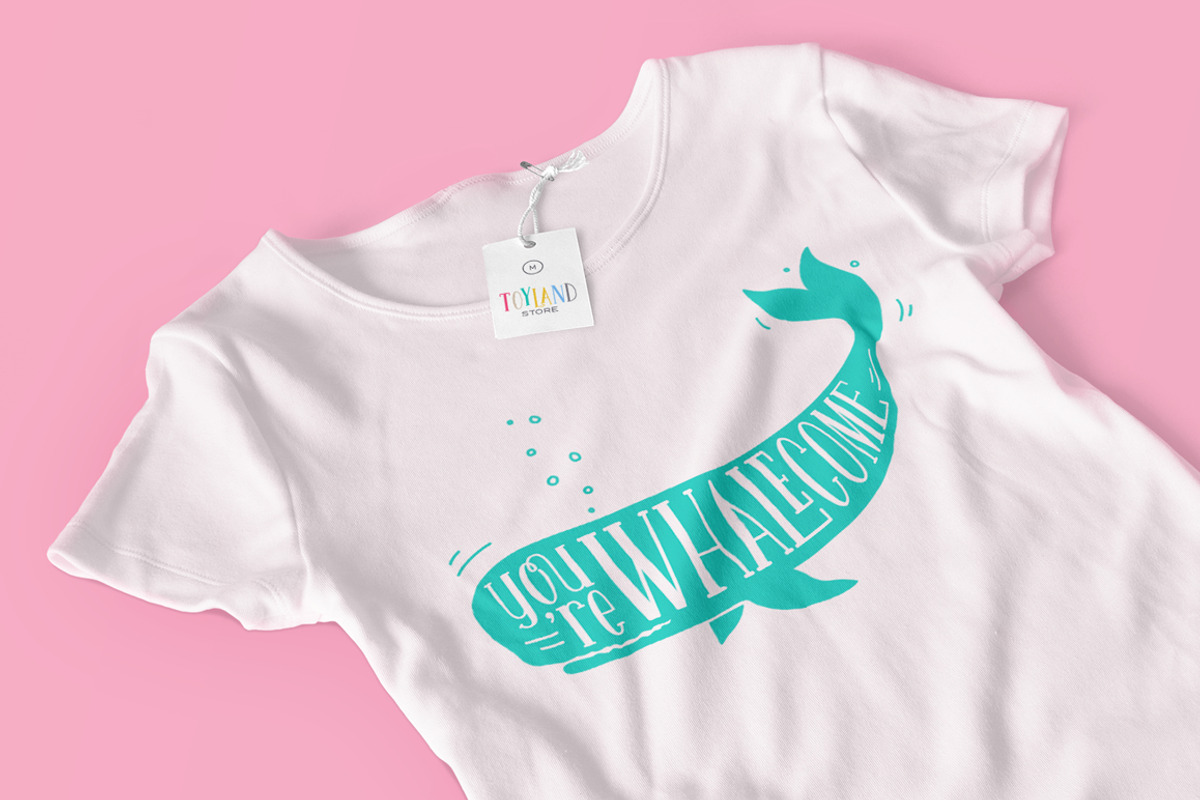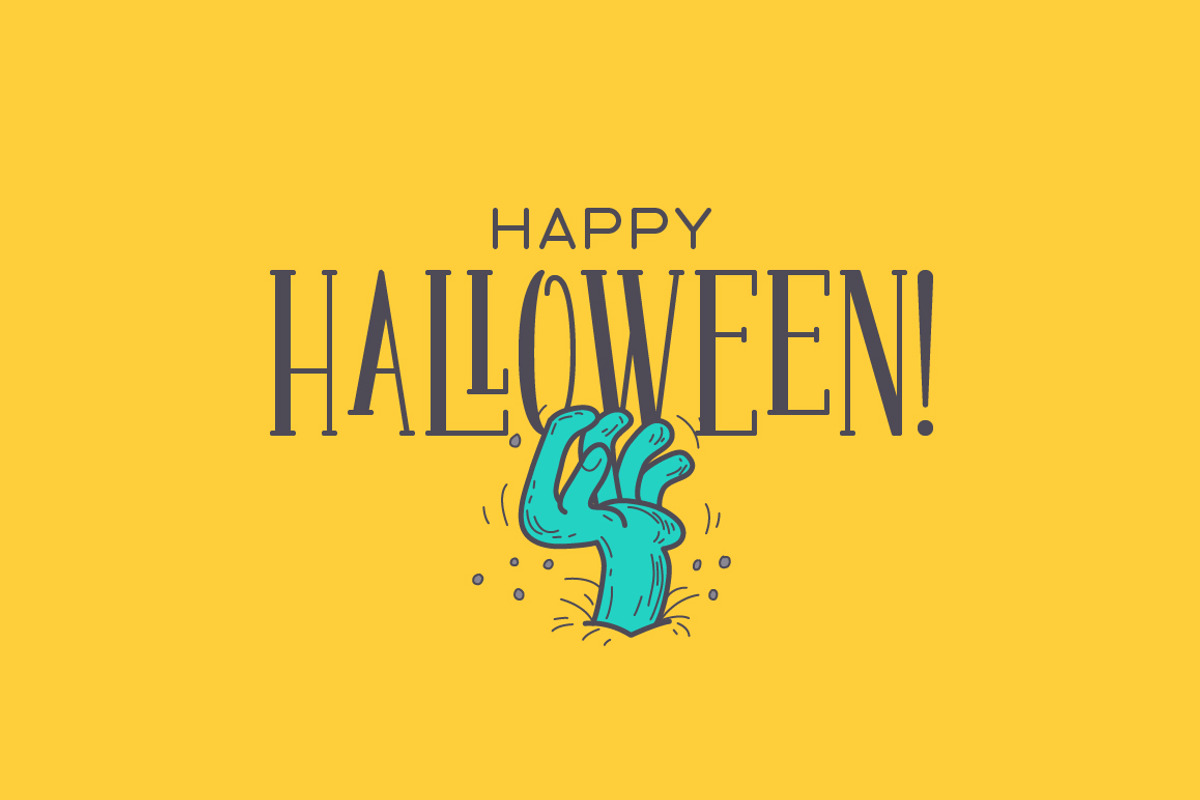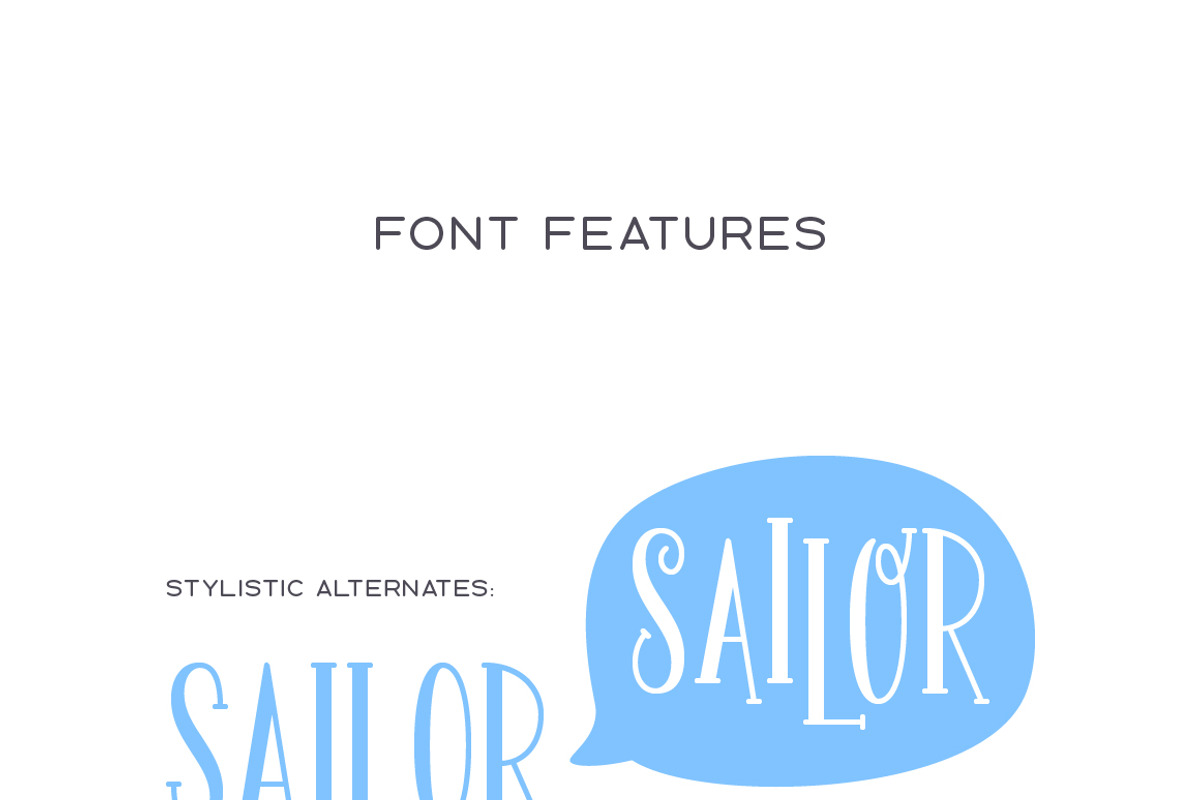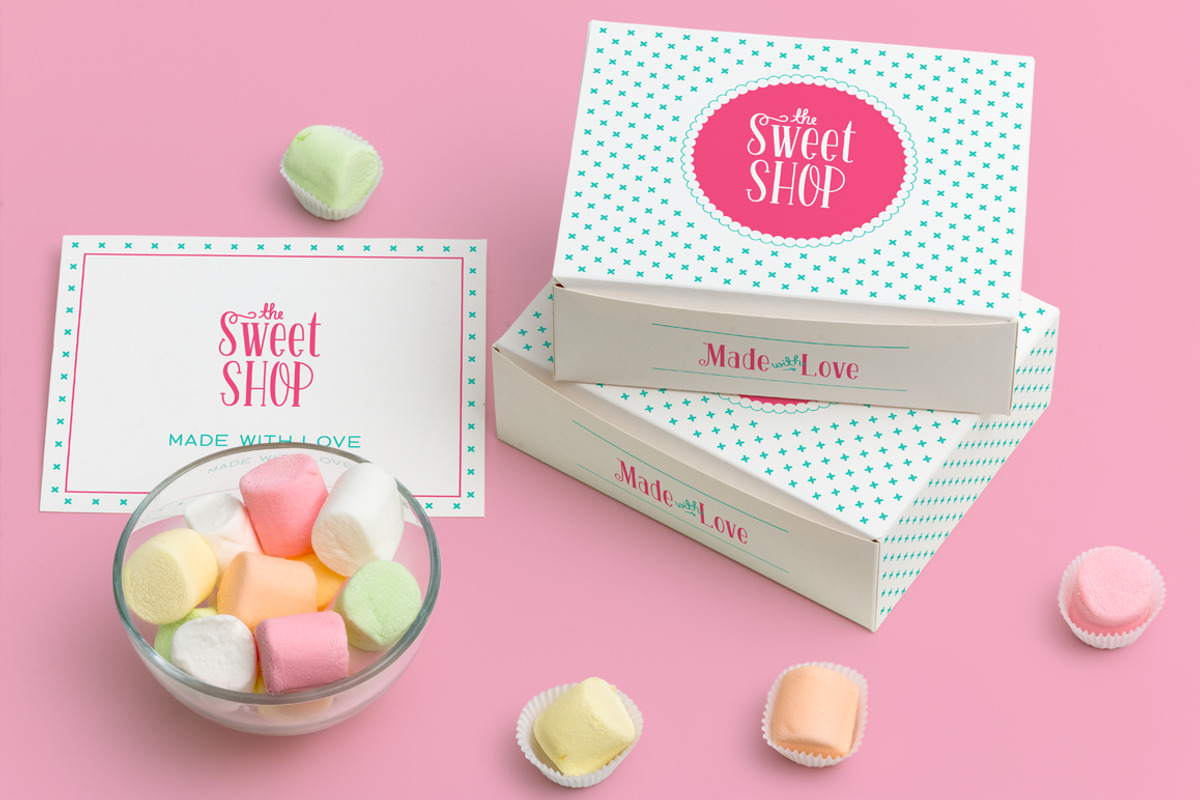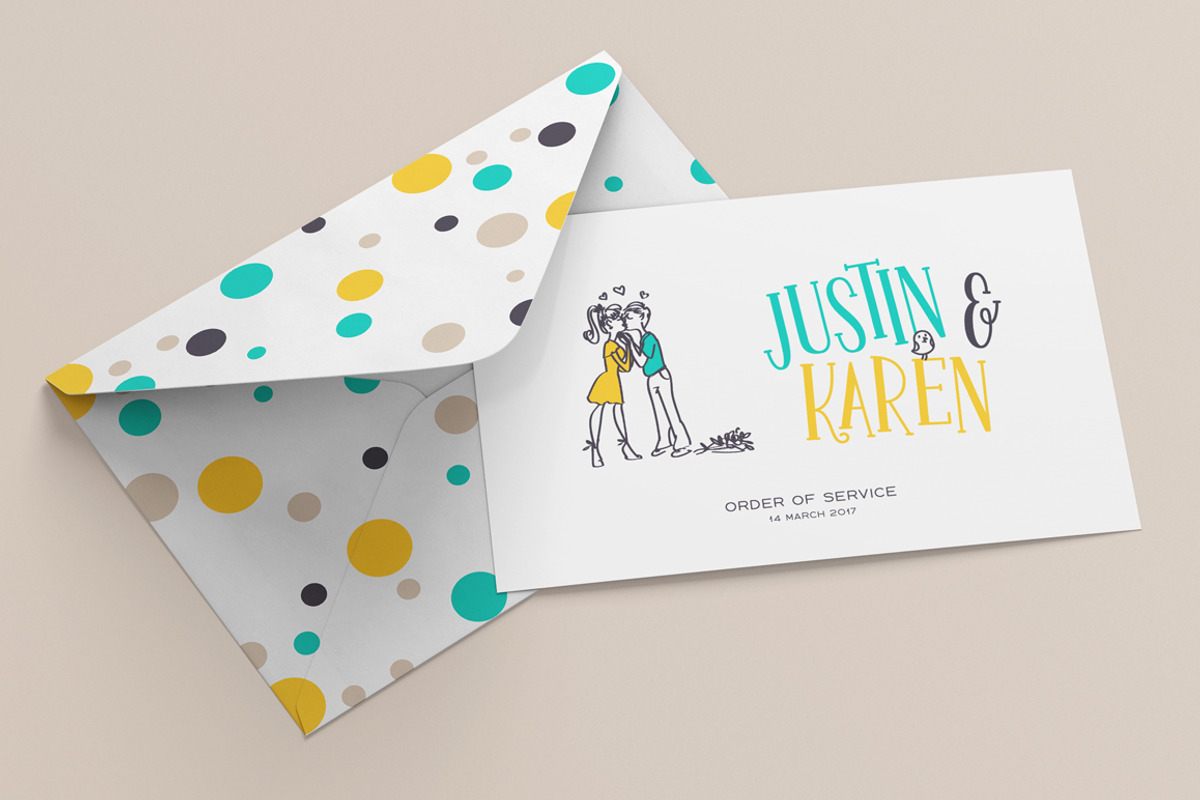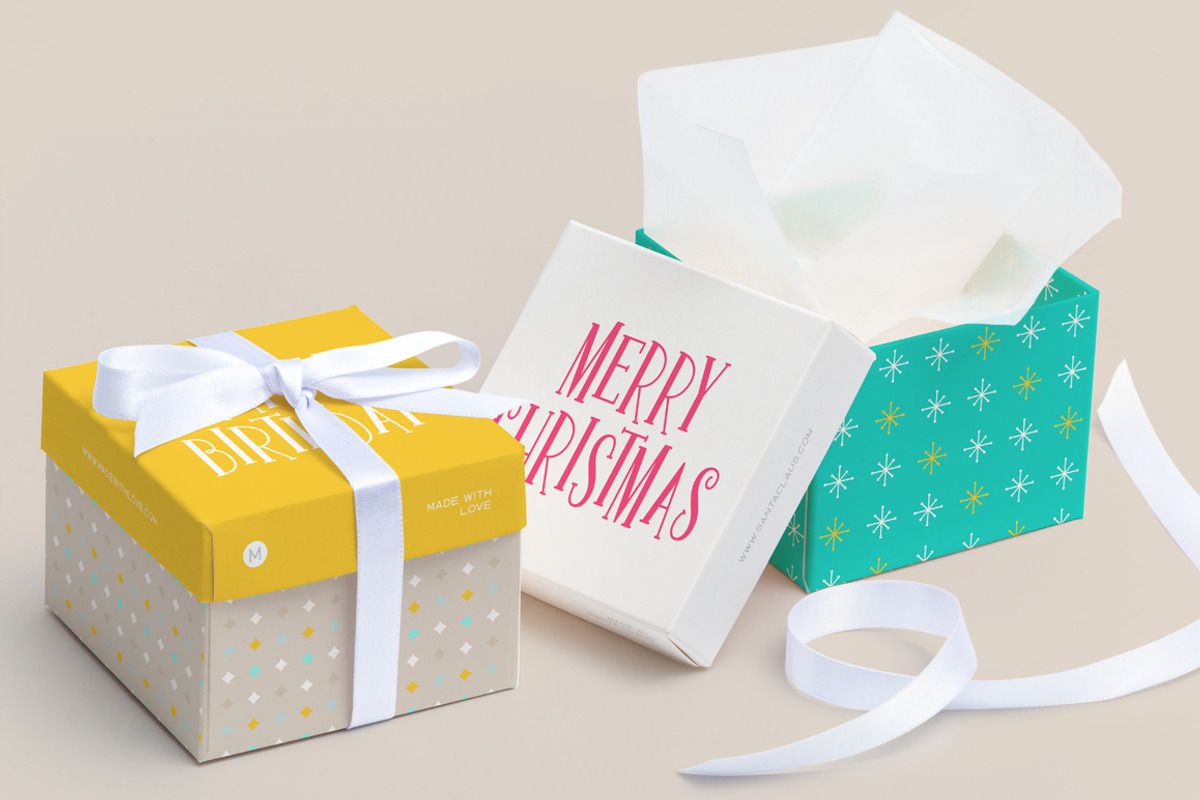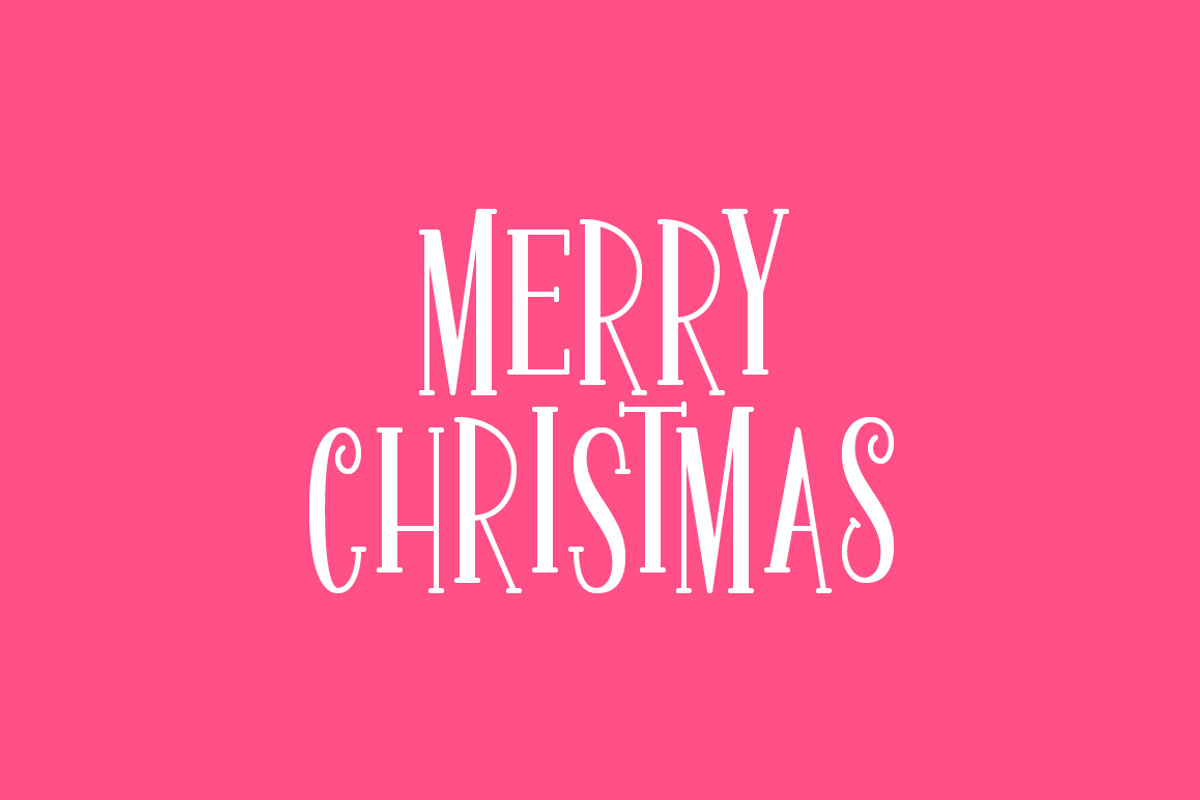
Sailor's Treasure - Font Duo
Sailor's Treasure - Font Duo by Victor Barac is a font selected for branding, posters, packaging, typography.
- Features: Stylistic Alternates Contextual Alternates Ligatures Multilingual Symbols & Punctuation Matching subtitle font A total of 450 Glyp
- Contextual Alternates Contextual alternates included in the Sailor's Treasure Font swaps the first capital letters with a more decorative al
- 30 Bonus Vectors To make your design even more awesome grab and place one of the bonus vectors included into the Sailor's Treasure pack.
Why Sailor's Treasure - Font Duo is worth a look
Sailor's Treasure - Font Duo by Victor Barac fits naturally into Branding, posters, packaging, typography.